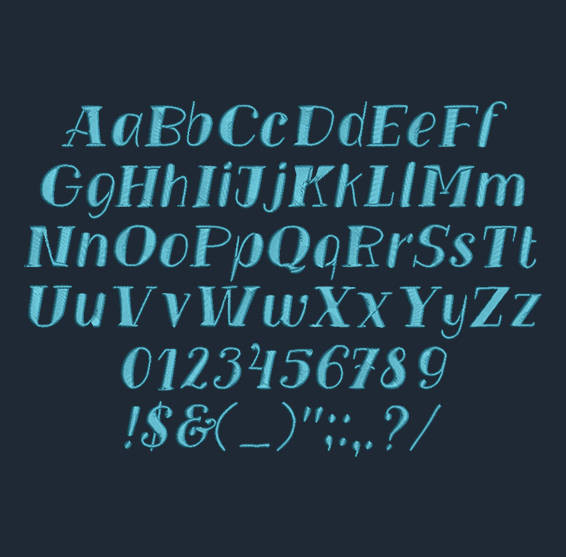
Vinograd - Filled Oblique Machine Embroidery Font Now Includes BX Format!
Title: TM Vinograd - Filled Oblique machine embroidery font
This Vinograd - Filled Oblique font is perfect for personalizing clothes, bags, towels and linens!